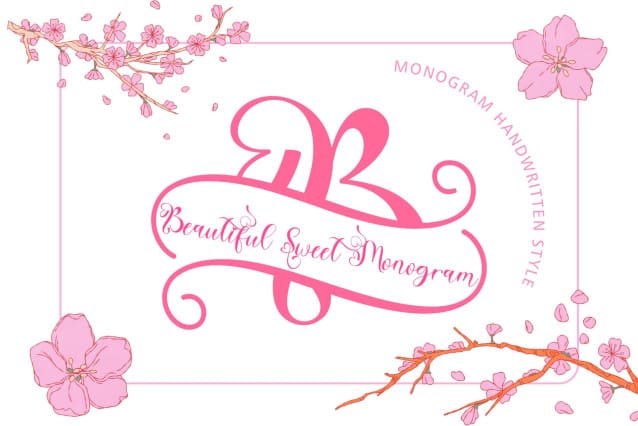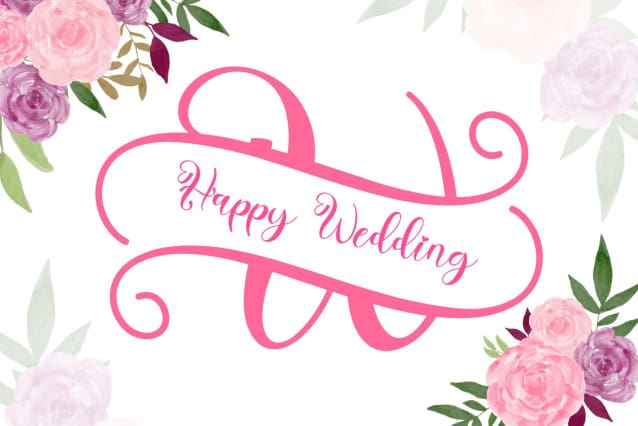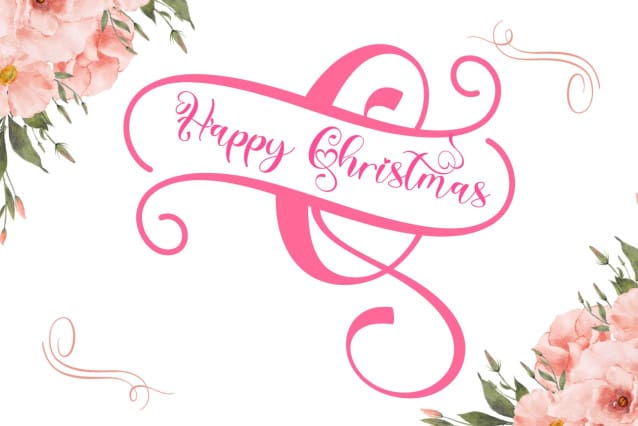
Beautiful Sweet Monogram Font
Beautiful Sweet Monogram Font is a beautiful handwritten monogram font. It comes with capital letters, lowercase letters, numbers, punctuation, and multilingual support. It is perfect for use in weddings, photography, Christmas, Valentine’s, stickers, banners, branding, invitations, and more.